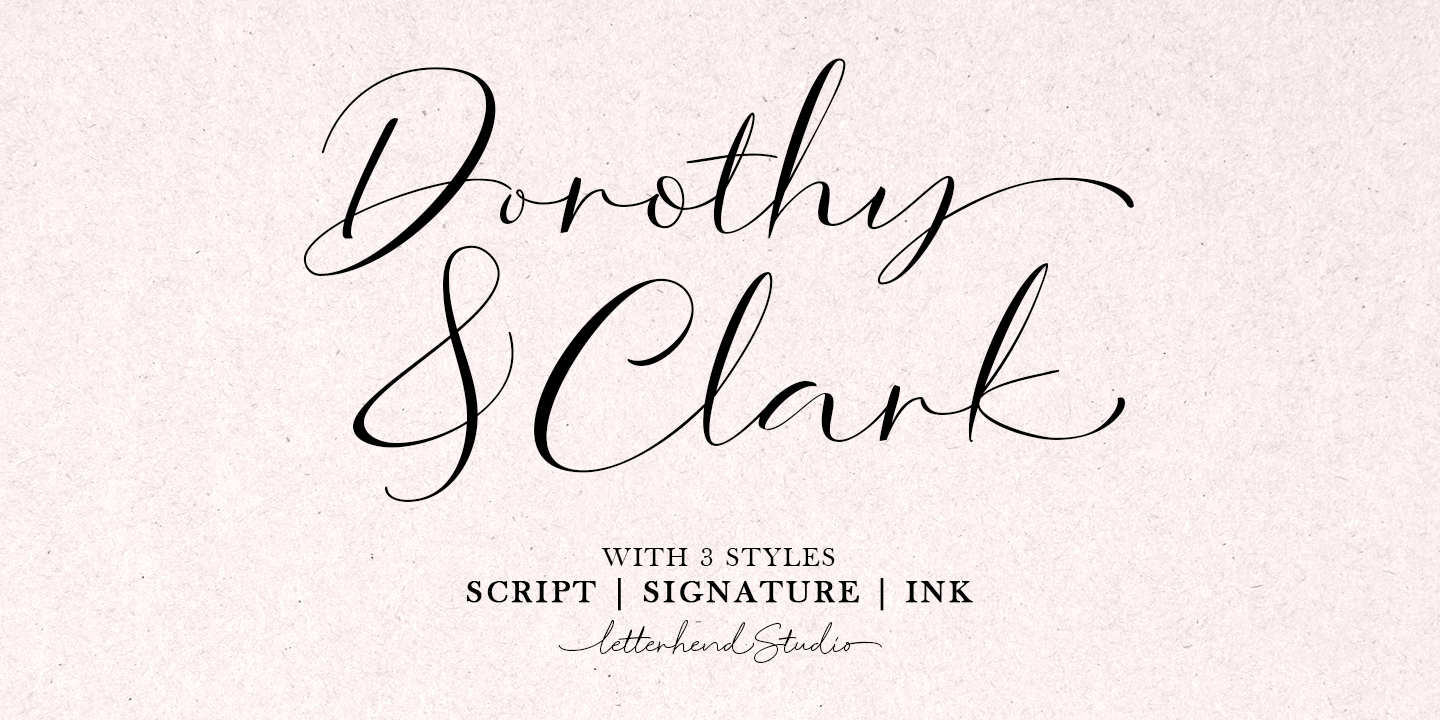
Dorothy Clark Font is perfect for vintage boutique branding, classic home décor signage, retro fashion labels, timeless café logos, nostalgic book covers, and elegant personal stationery designs.
Dorothy Clark Font is exciting because it embodies classic American charm and timeless sophistication, delivering a graceful typeface that captures the essence of mid-century elegance and enduring feminine style.
The Dorothy Clark Font family includes timeless variations: Dorothy Clark Light, Dorothy Clark Regular, Dorothy Clark Medium, Dorothy Clark Bold, vintage alternates, and decorative elements inspired by classic American typography.
Embrace timeless elegance with Dorothy Clark Font Free Download, a gracefully crafted typeface that brings classic American charm and vintage sophistication to your most endearing design projects. This refined font excels in creating memorable branding for antique shops, vintage-inspired restaurants, heritage bed-and-breakfasts, and classic fashion boutiques that celebrate the enduring appeal of American mid-century style and traditional values. The beautifully designed letterforms feature balanced proportions and gentle curves that echo the elegant simplicity of 1950s typography while ensuring perfect readability across all nostalgic applications. Perfect for vintage wedding invitations, classic cookbook designs, heritage brand communications, and timeless home décor materials that need to evoke feelings of warmth and authentic American hospitality, this font connects with audiences who appreciate quality craftsmanship and enduring style. Each character radiates with wholesome charm, making every vintage message feel like a treasured family heirloom passed down through generations. Dorothy Clark Font transforms contemporary communications into nostalgic treasures that honor classic American values while creating lasting connections with audiences who cherish timeless beauty and authentic traditions.